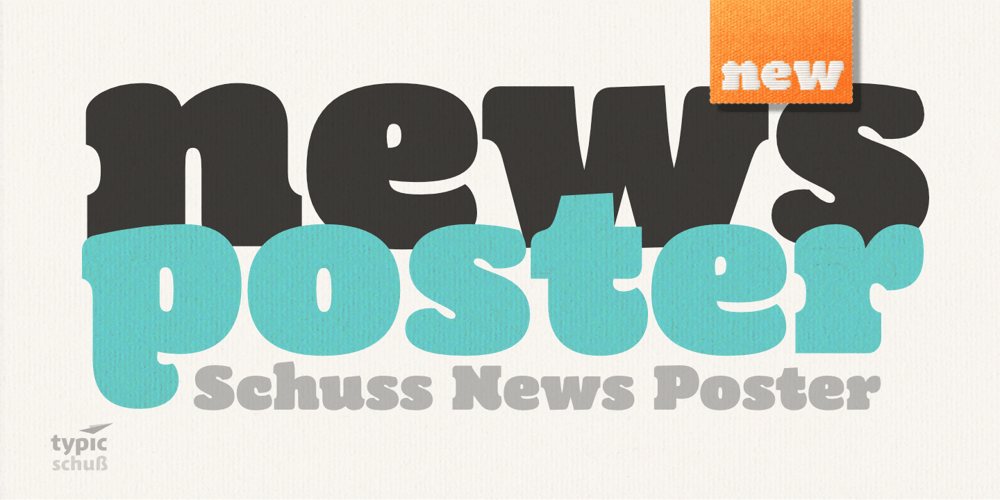
Schuss News Poster Font Family was designed by Jochen Schuss and published by typic schuss. Schuss News Poster contains 1 styles and family package options. Schuss News Poster ist the very heavy headline font (titling/display/poster) of Schuss News. (No italic, no additional figures, no tabular figures, no small Caps, slyghtly different heights as the other font of the Schuss superfamily (Sans, Slab, News and Serif). The character set is different to the other styles. It is not developed for small text sizes.)